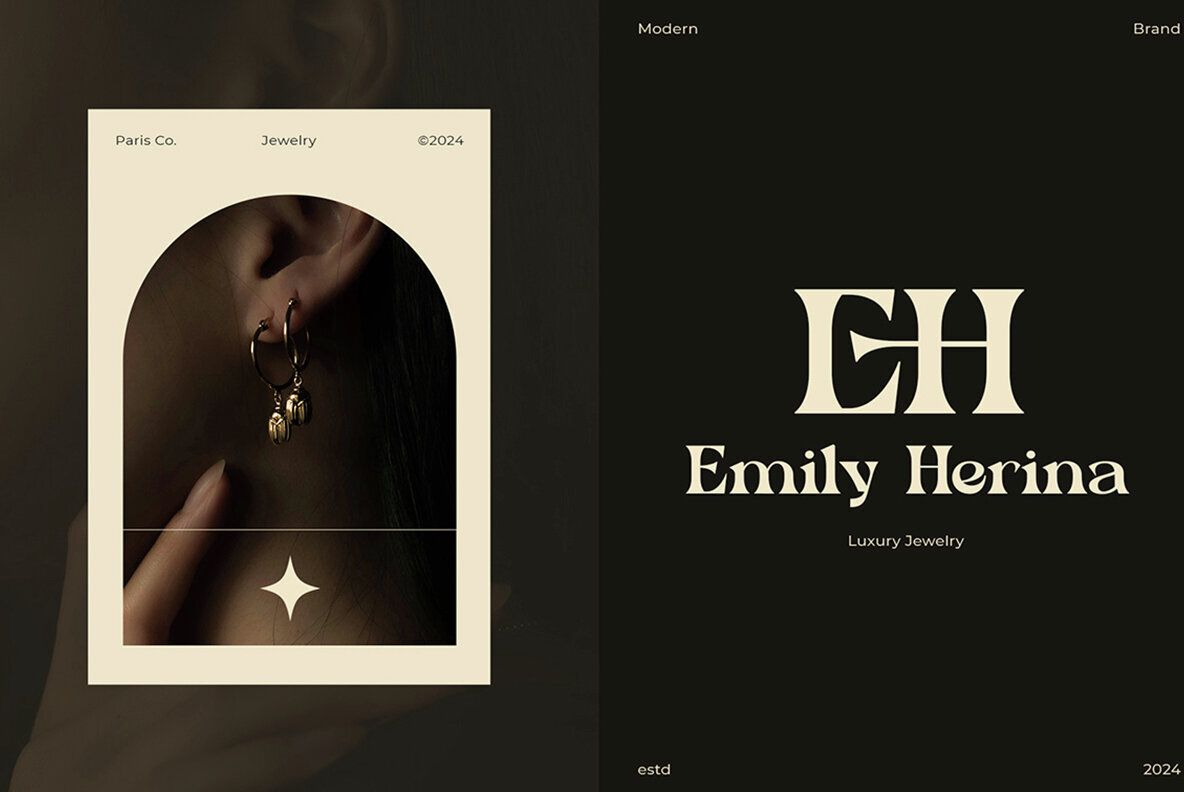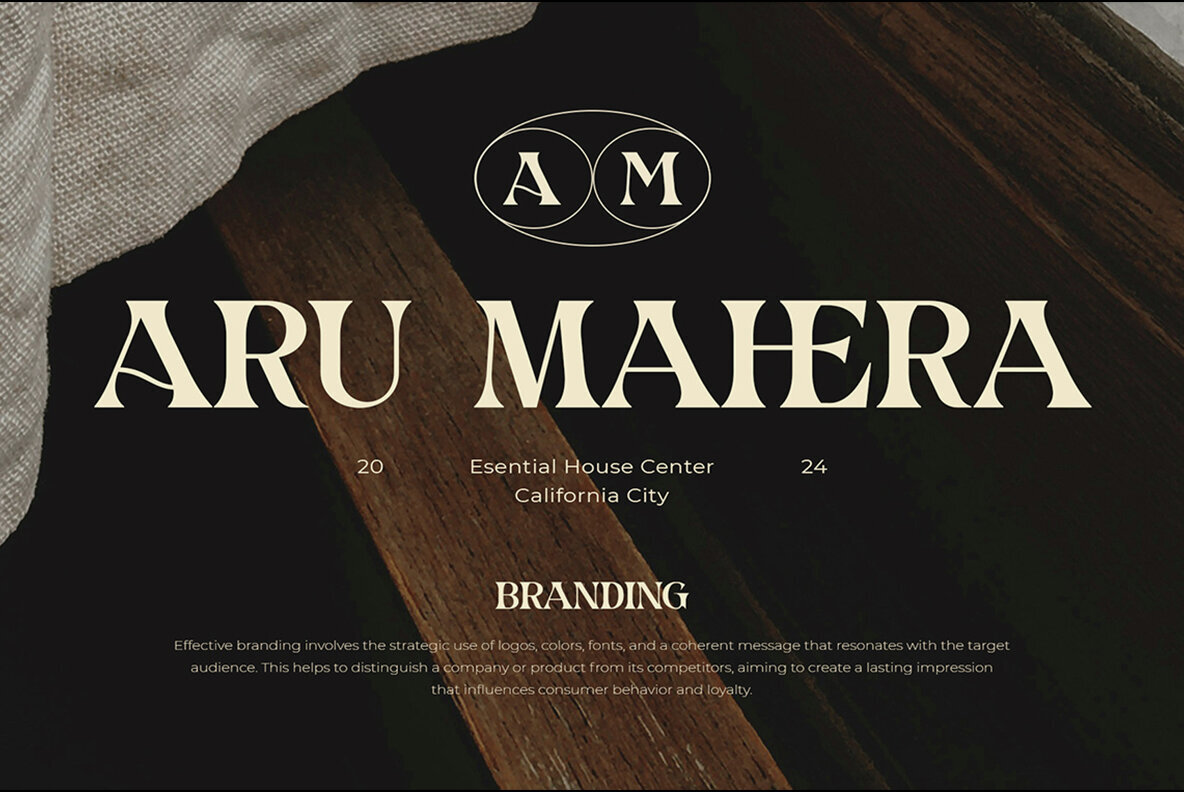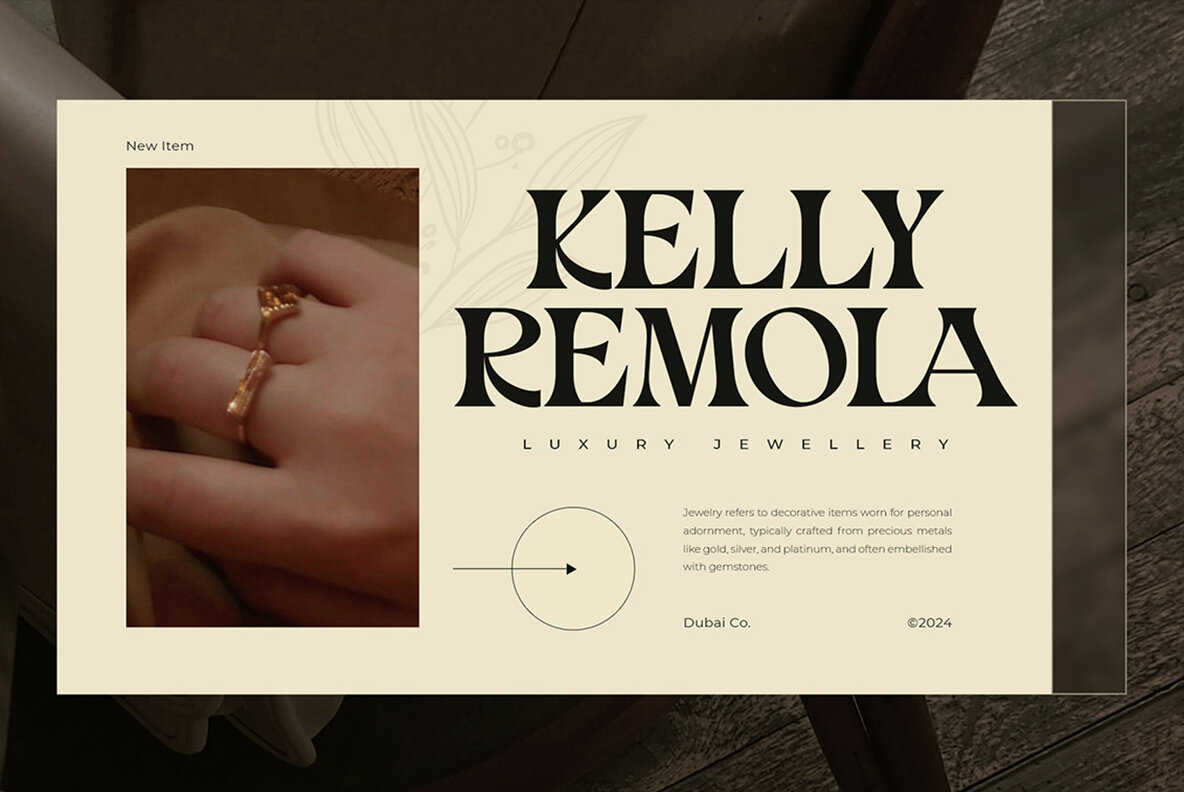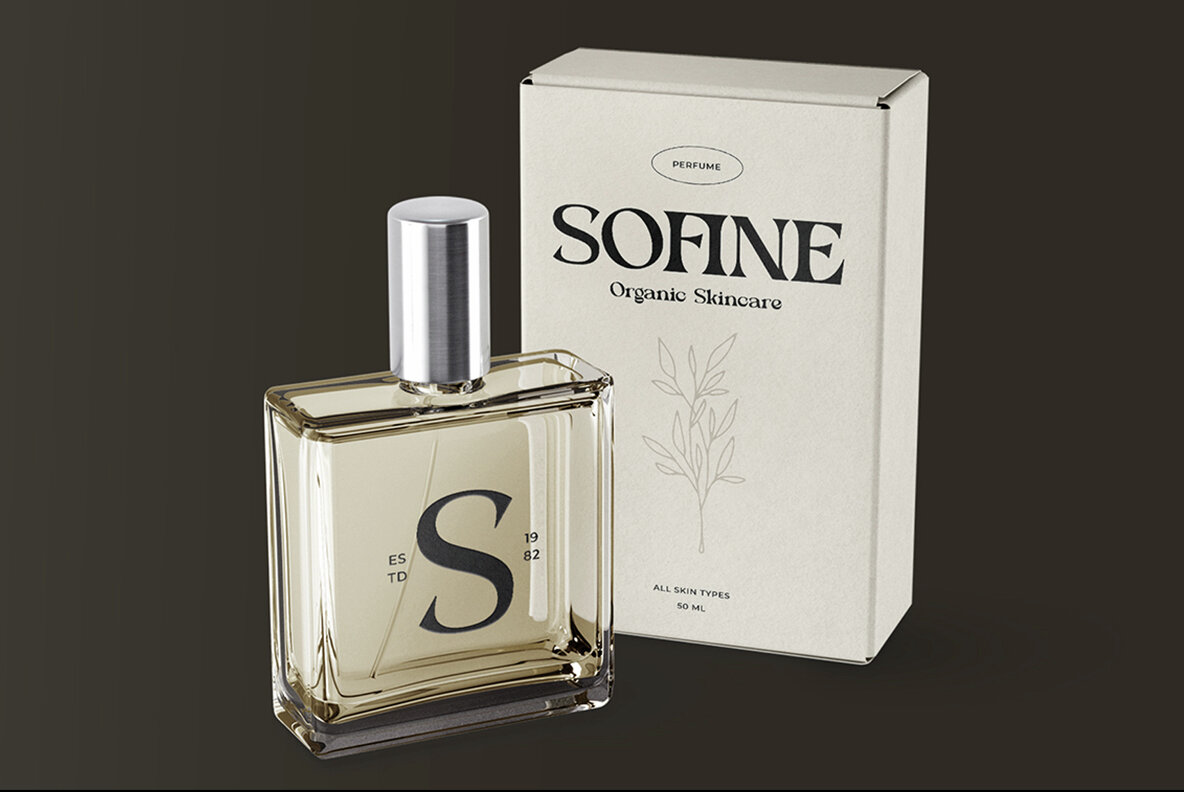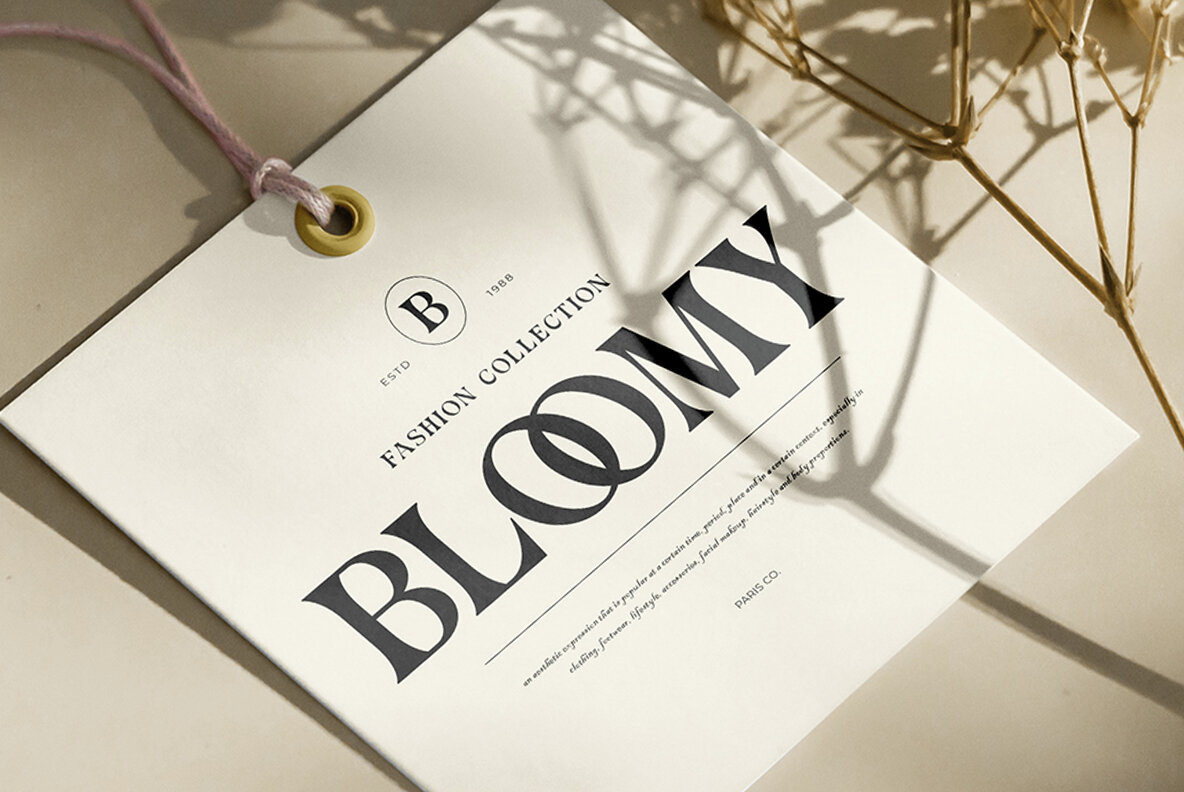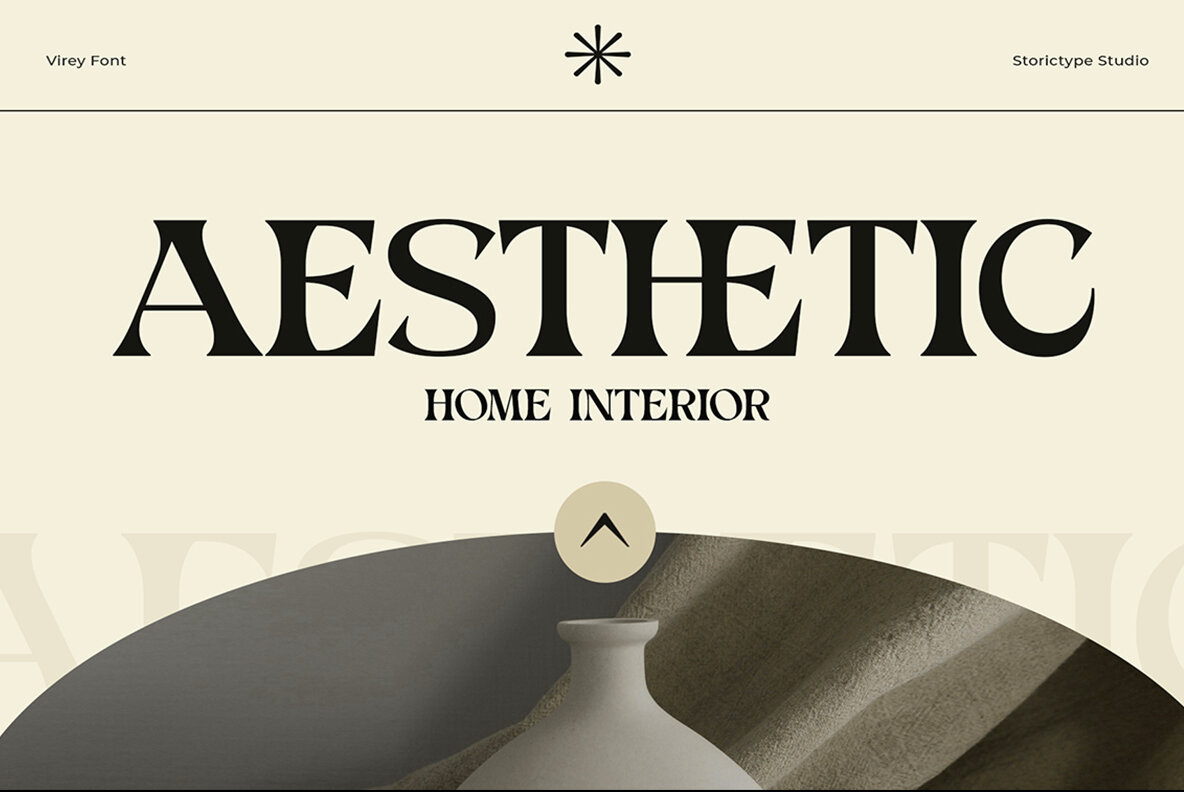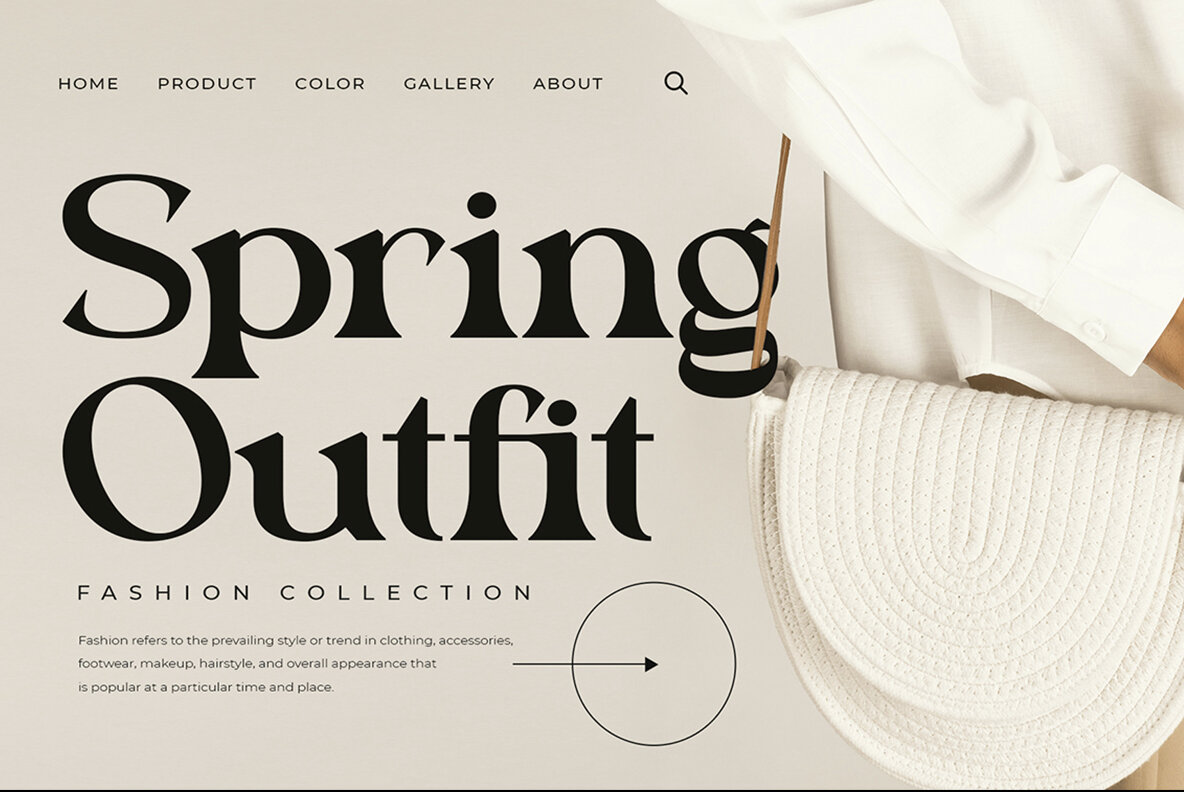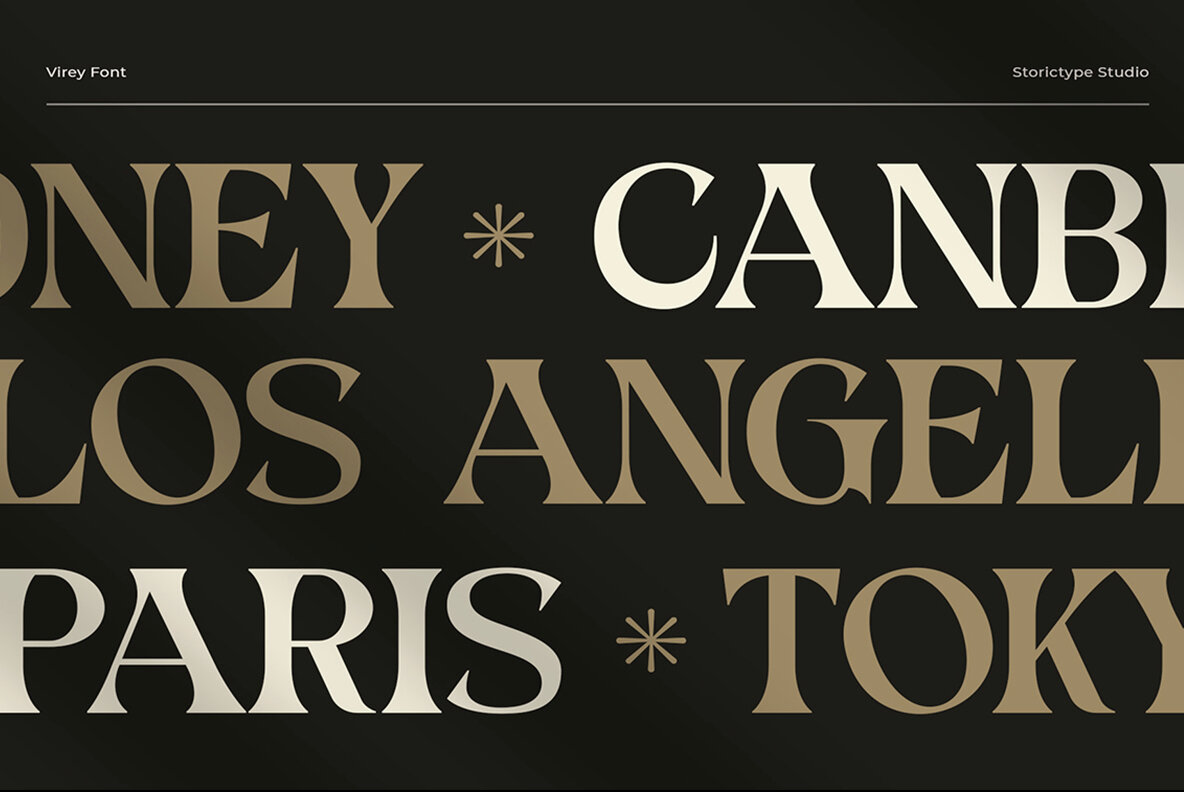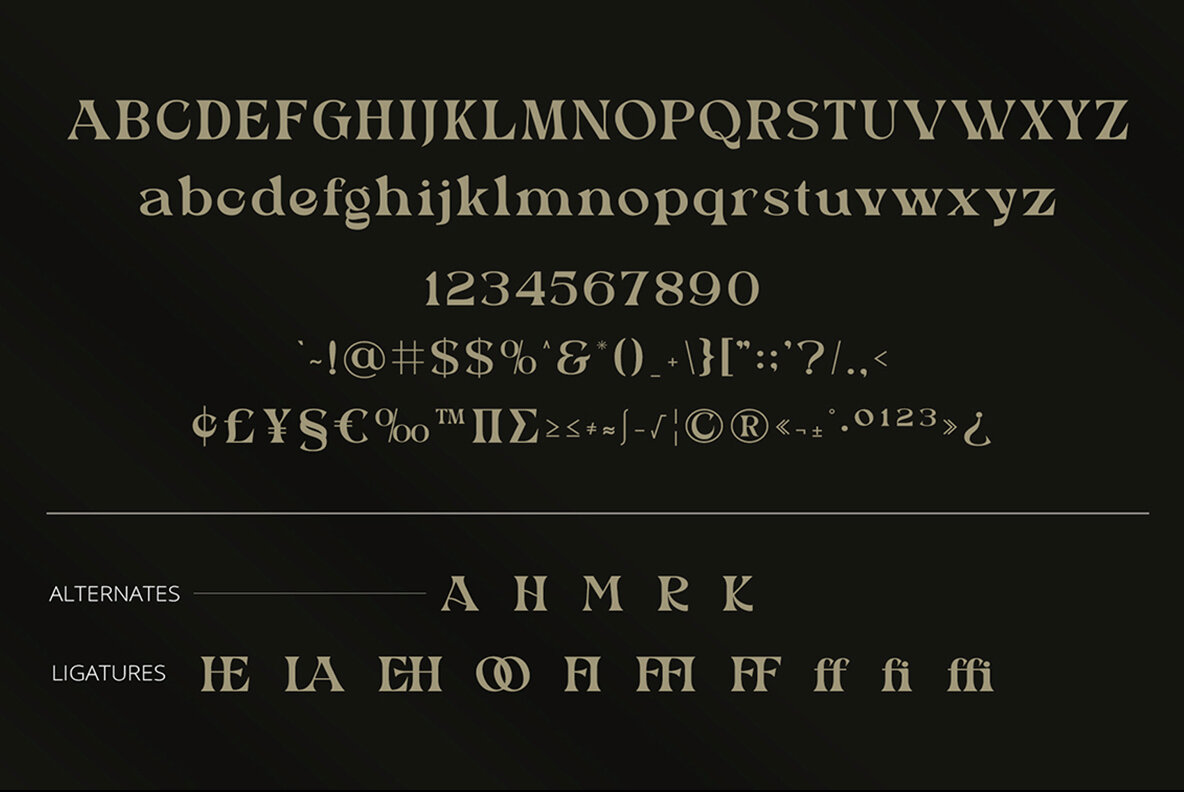
Virey Font
Virey Regular
Virey is a minimalist, modern serif font with elegant ligatures and extensive multilingual support. Its versatility makes it an excellent choice for both large and small sizes. Ideal for branding projects, logo design, clothing branding, and product packaging, Virey also shines in magazine headers or as a stylish text overlay on any background image.
This font features uppercase and lowercase characters, stylistic alternates, ligatures, numerals, punctuation, and accented characters. Its comprehensive character set ensures it can handle multiple languages with ease. Perfect for designers seeking a sophisticated and timeless aesthetic in their work, Virey provides a sleek and stylish solution for a variety of design needs.